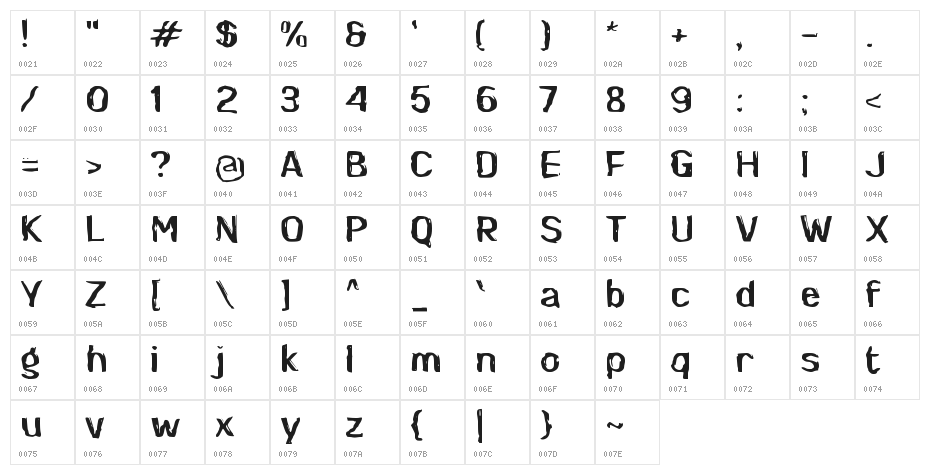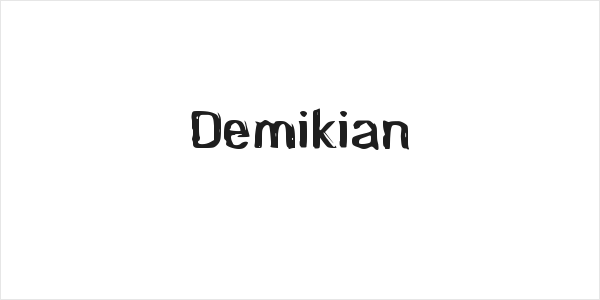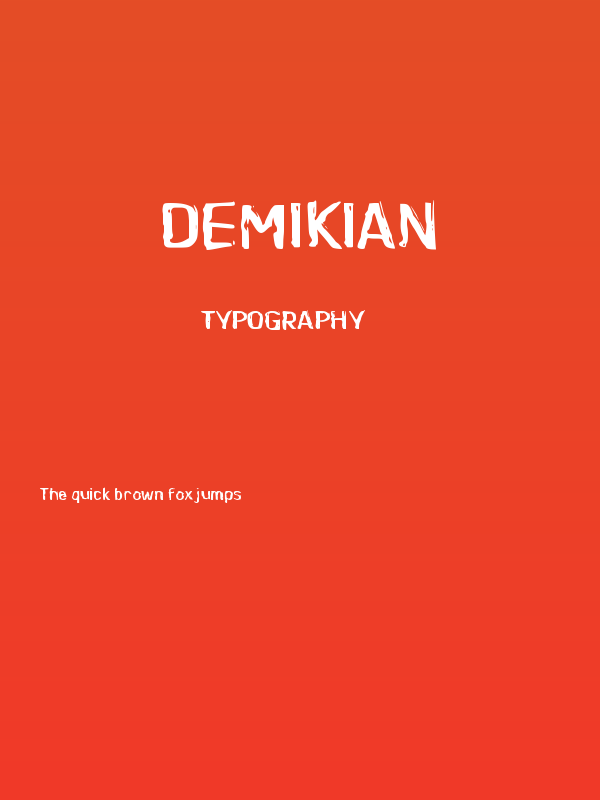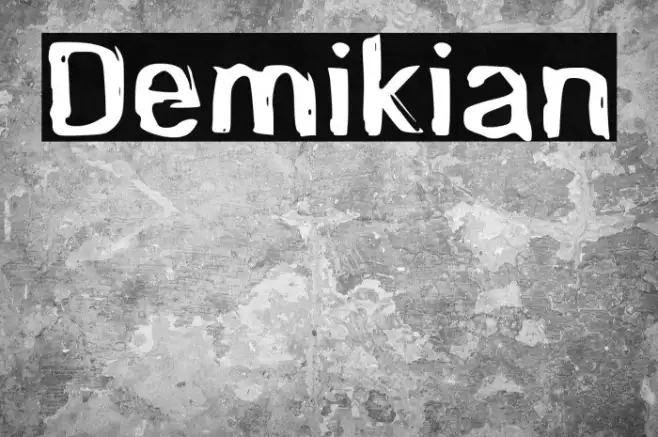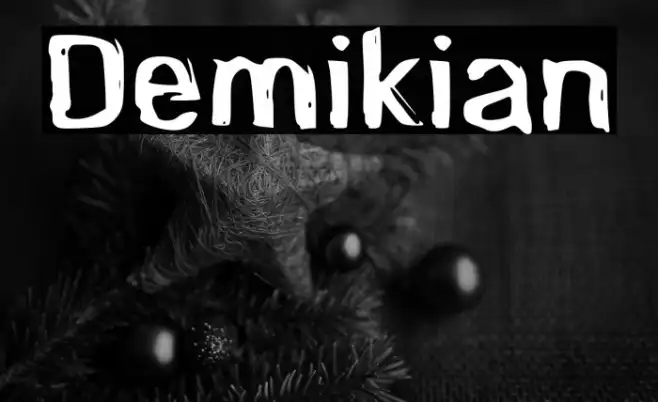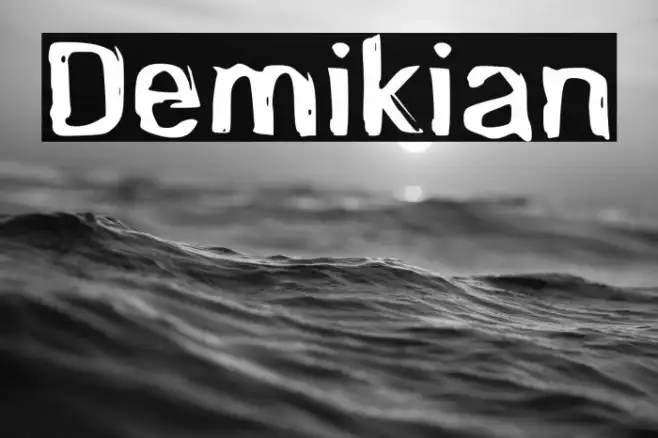
Demikian Font
Demikian Description
This font features a bold and expressive style with a hand-painted appearance. The characters have an irregular, organic form, giving them a dynamic and artistic feel. The strokes are uneven, with varying thicknesses that add to the font's unique character. The uppercase and lowercase letters maintain a consistent style, while the numbers and special characters complement the overall design. This font is ideal for projects that require a creative and informal touch, such as posters, artistic branding, or any design that aims to stand out with a bold statement.
| Overall Style | Artistic, Expressive |
| Proposed Projects | Posters, artistic branding, creative invitations, and unique logo designs. |